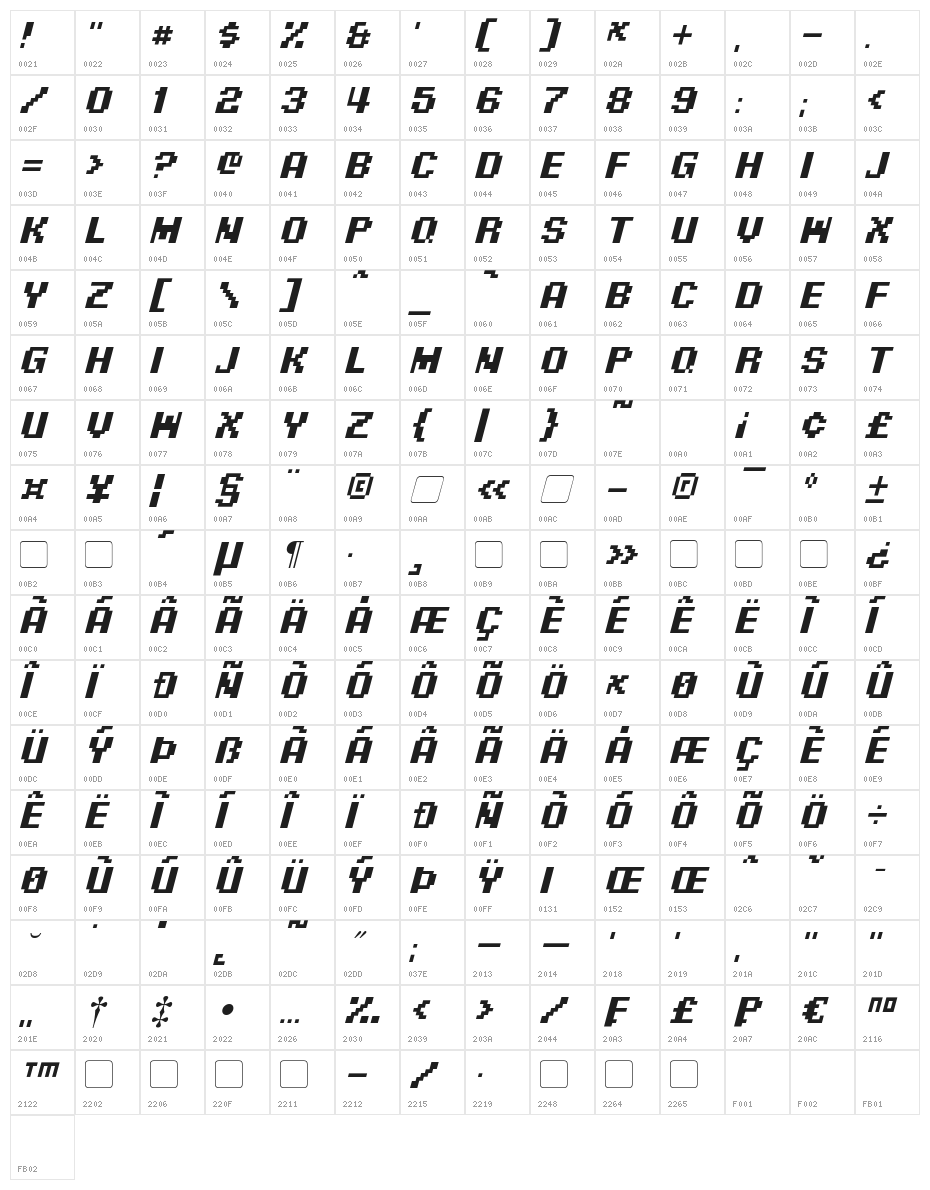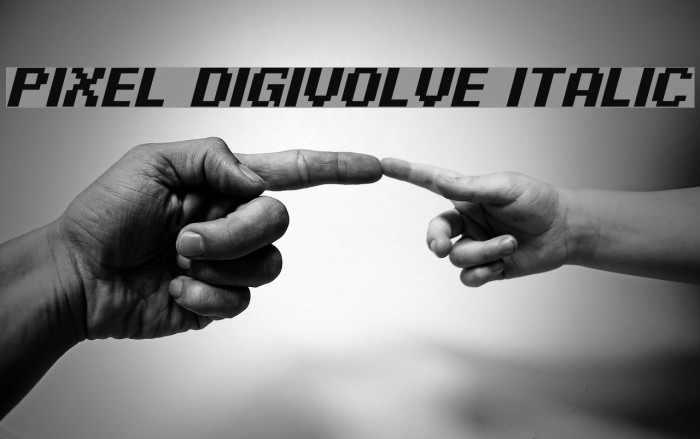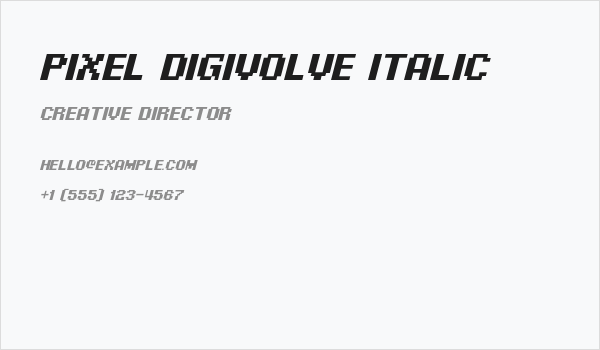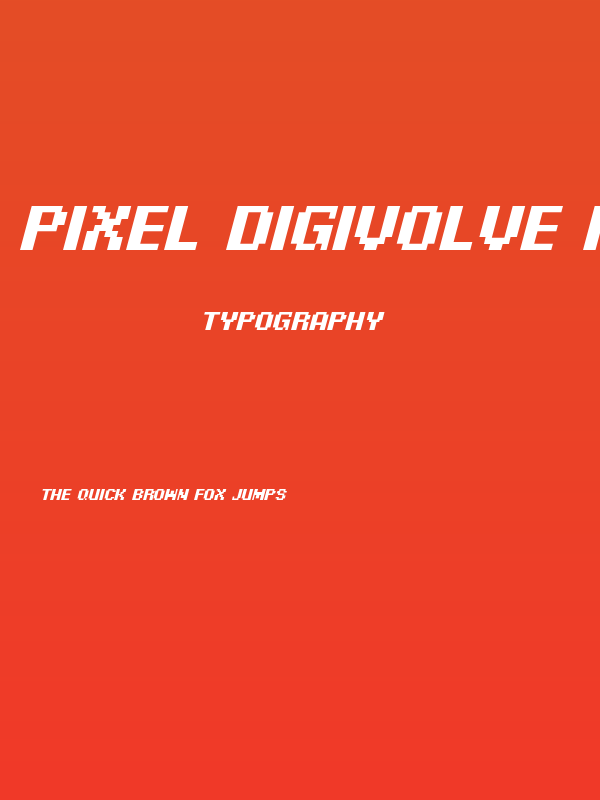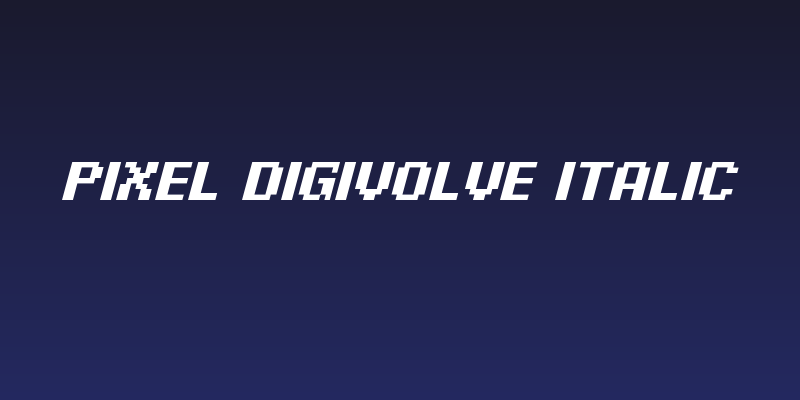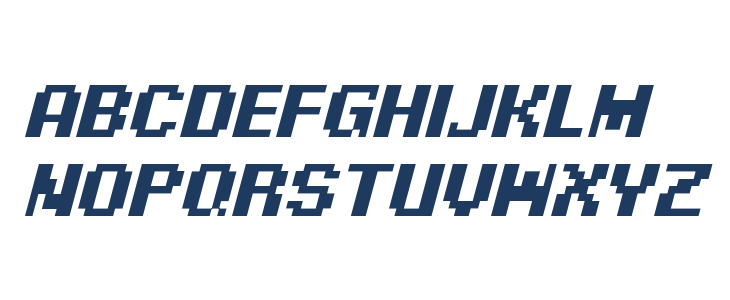
Pixel Digivolve Italic Font
Pixel Digivolve Italic Description
This font features a bold, pixelated design with a distinct italic slant, reminiscent of retro digital displays and early video game graphics. Each character is constructed with sharp, blocky edges, creating a sense of movement and energy. The uppercase and lowercase letters maintain a consistent style, with uniform pixelation that enhances readability while preserving the nostalgic aesthetic. Numbers and special characters are equally bold and pixelated, ensuring a cohesive look across all text elements. The font's unique style makes it ideal for projects that aim to evoke a sense of nostalgia or digital innovation.
| Overall Style | Retro, Digital |
| Use Case | Headlines, Logos, Digital Art |
| Proposed Projects | Ideal for video game design, digital art projects, retro-themed posters, and tech-related branding. |